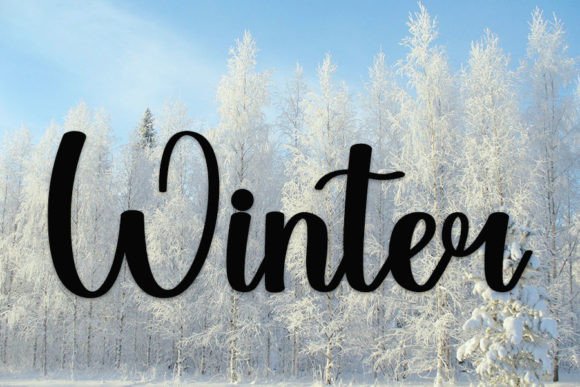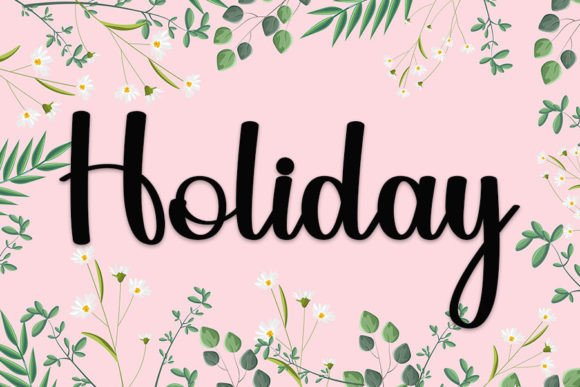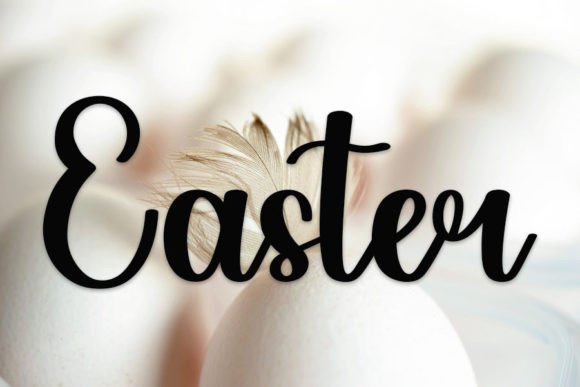
Introduction to Lacking Font
Lacking is a neat and beautiful handwritten font described by an elegant touch, perfect for your favorite projects.
Fall in love with its incredibly distinct and timeless style, and use it to create spectacular designs .
Lacking Font offers exceptional quality and versatility, making it a valuable addition to your design toolkit. Whether you’re creating for personal projects or commercial use, Lacking Font delivers professional results.